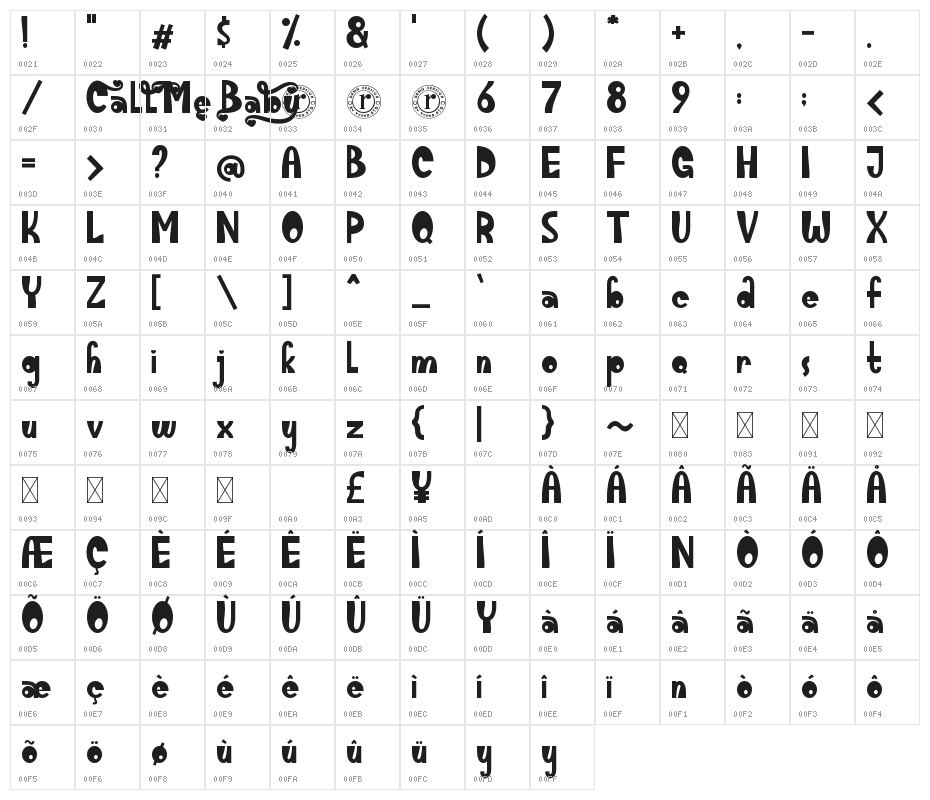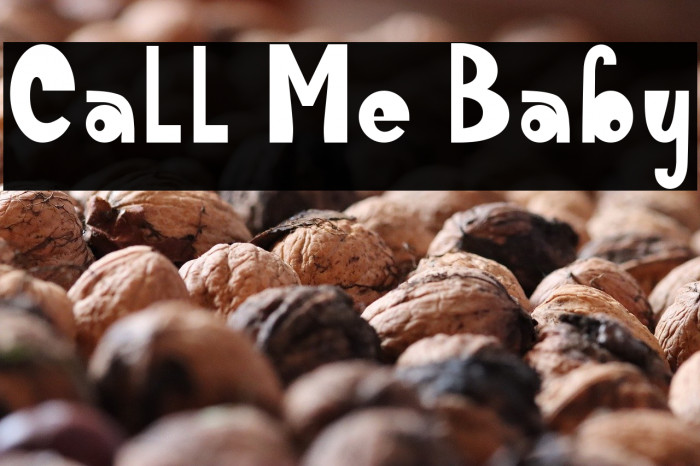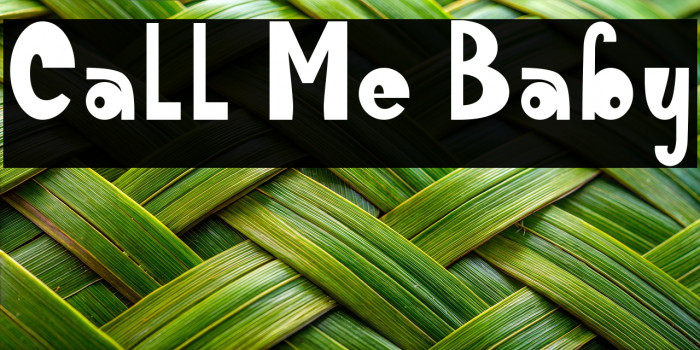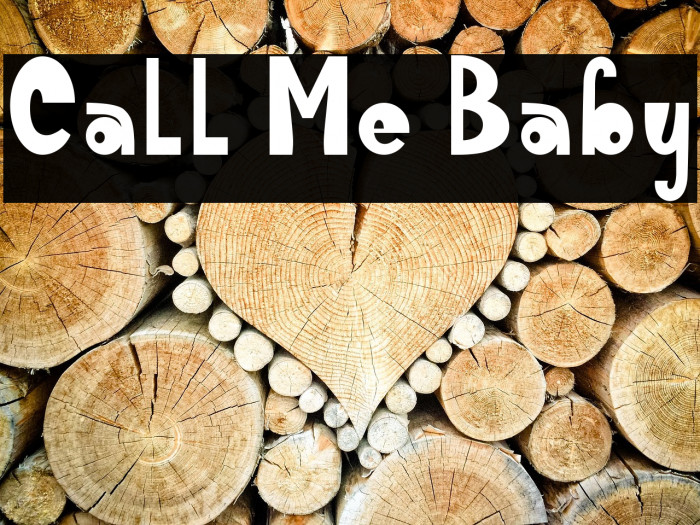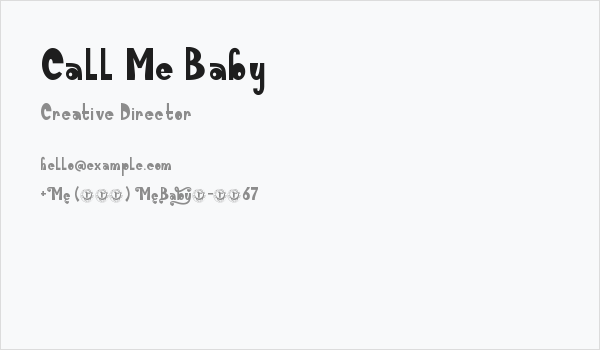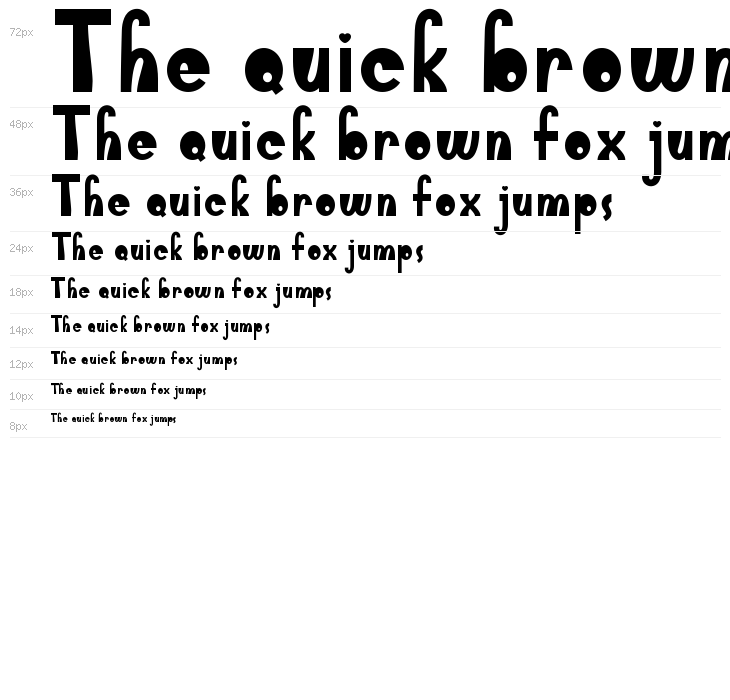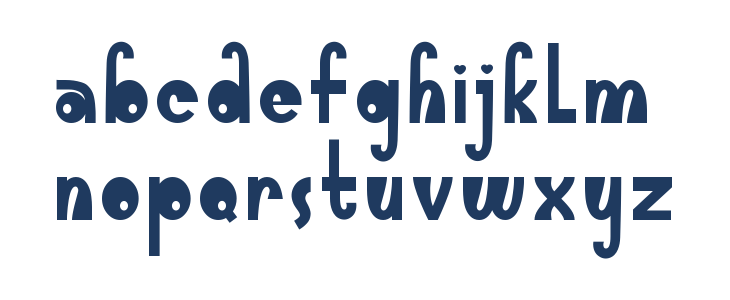
Call Me Baby Font
Call Me Baby Description
This playful and whimsical font features bold, rounded characters with a unique, decorative flair. The uppercase letters are characterized by their thick strokes and slightly condensed form, giving them a strong presence. The lowercase letters maintain a similar boldness, with some characters incorporating playful loops and swirls, adding to the font's charm. The numerals are consistent with the overall style, ensuring readability while maintaining the decorative theme. Special characters are creatively designed, fitting seamlessly into the font's aesthetic. This font is ideal for projects that require a fun and engaging look.
| Width | Condensed |
| Overall Style | Whimsical |
| Use Case | Logos, Headlines, Posters |
| Proposed Projects | Ideal for children's books, playful branding, party invitations, and creative posters. |